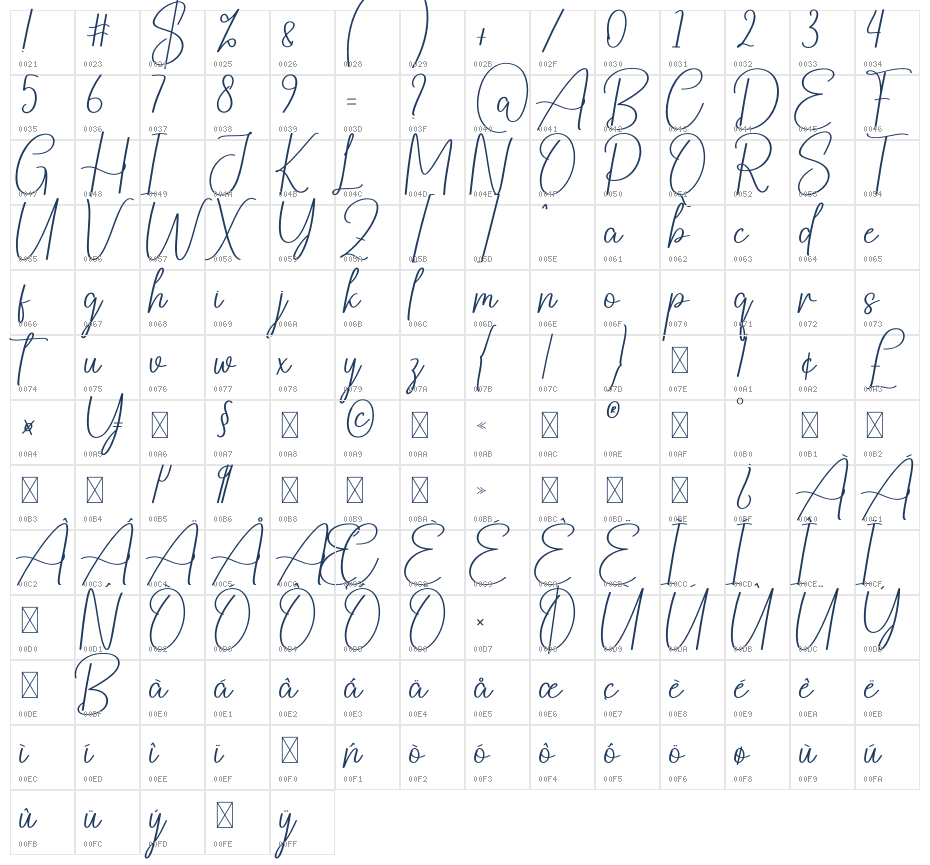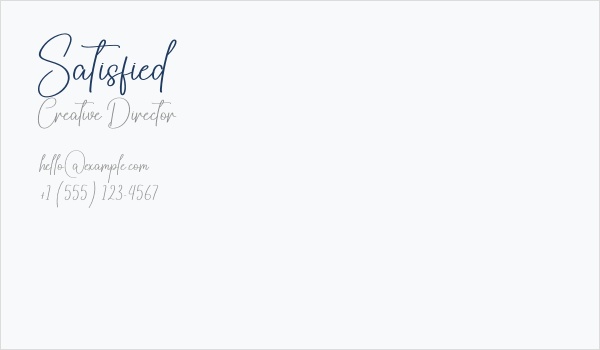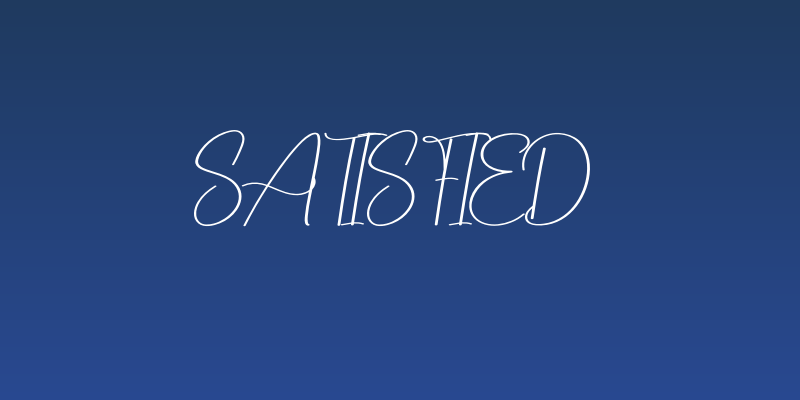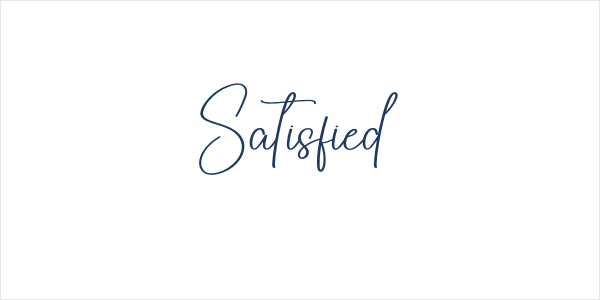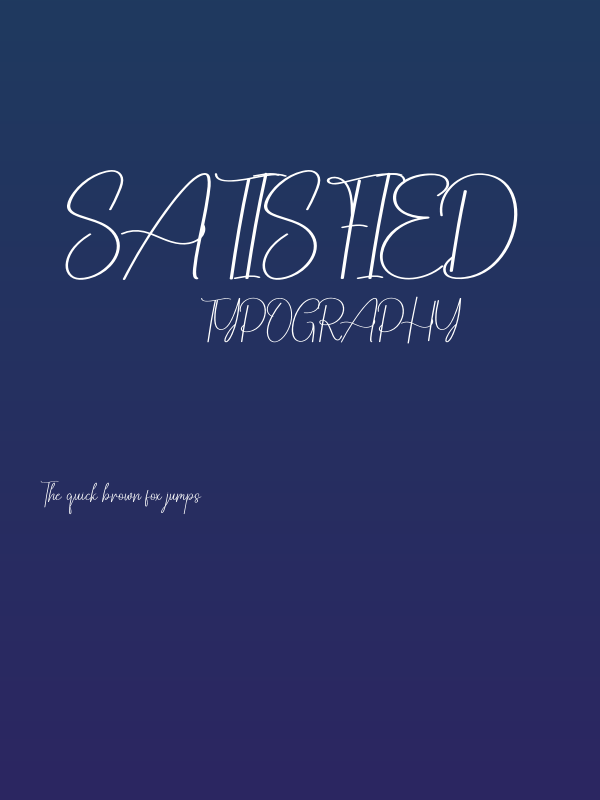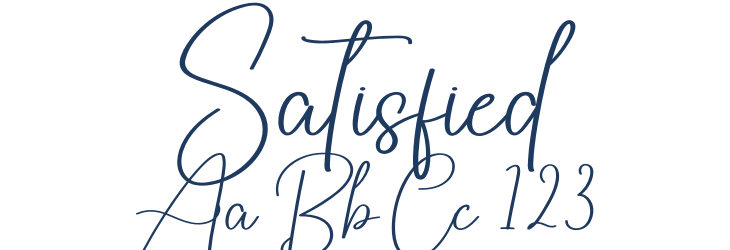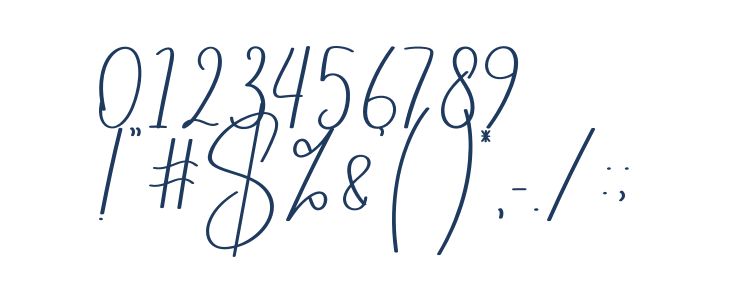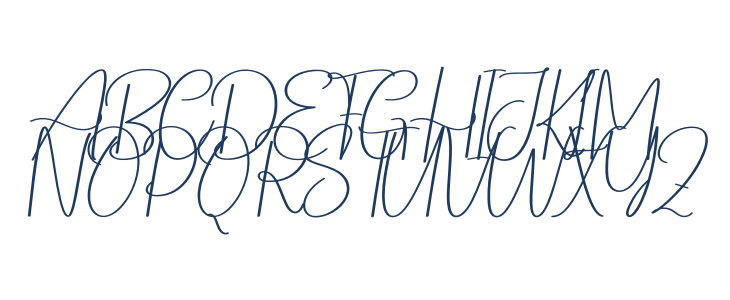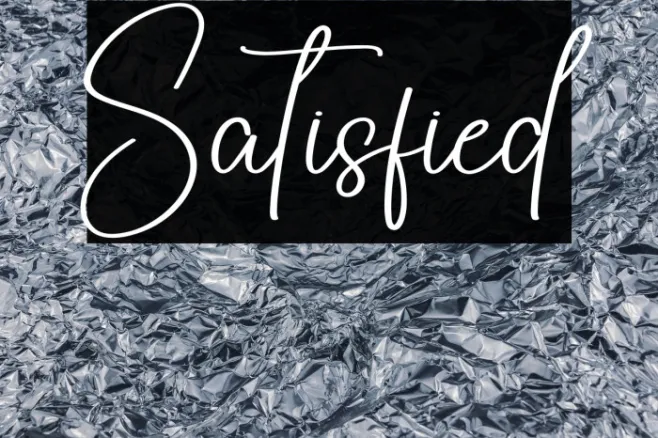
Satisfied Font
Satisfied Description
A cursive, handwritten style font with elegant, flowing lines and a delicate appearance.
| Overall Style | Elegant, Casual, Personal |
| Use Case | Invitations, greeting cards, branding, logos, personal stationery. |